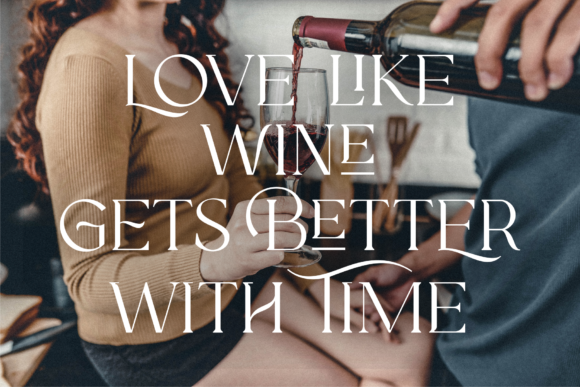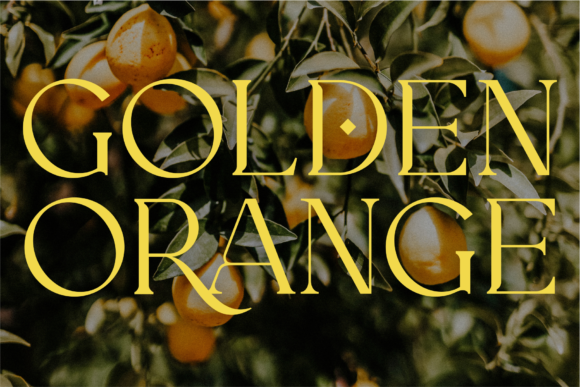
Casey Font
Say hello to Casey Typeface -a fancy and beautiful editorial serif with luxury ligatures, alternates, and glyphs. It’s a versatile font that looks great in big and small sizes.
This font has a wide variety of uses, including editorial projects, logo design, clothing branding, product packaging, magazine headers, etc. It’s ideal for any graphic design project or as a stylish text overlay to any image.